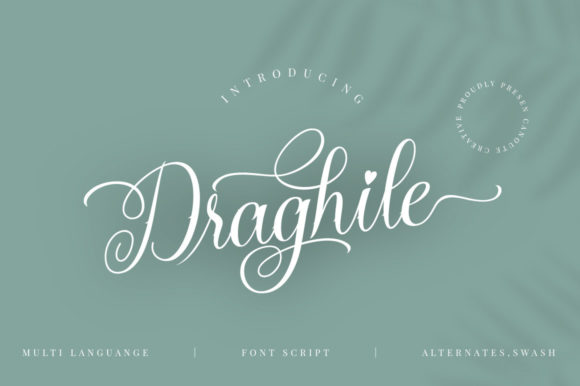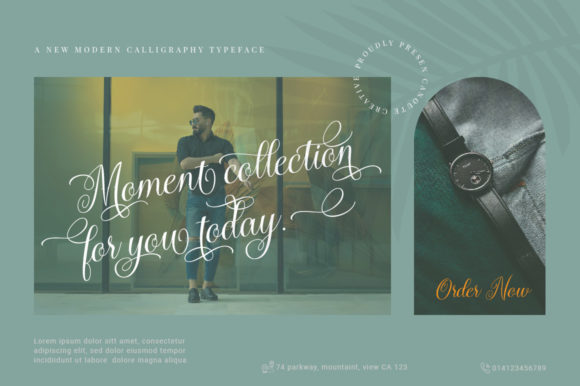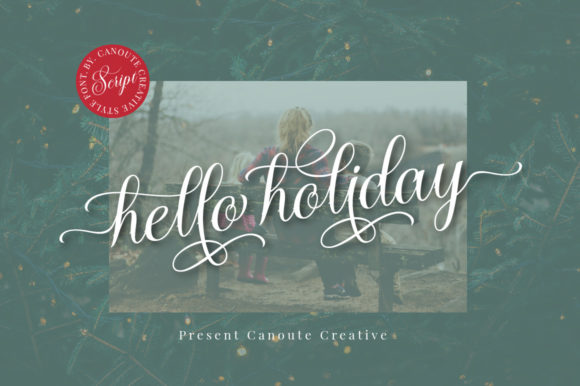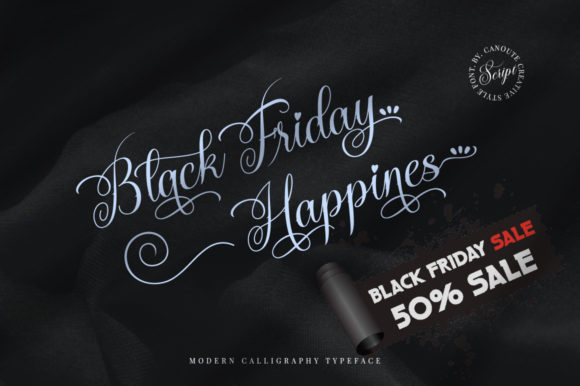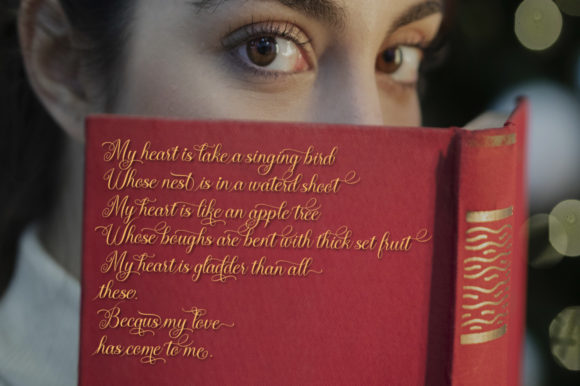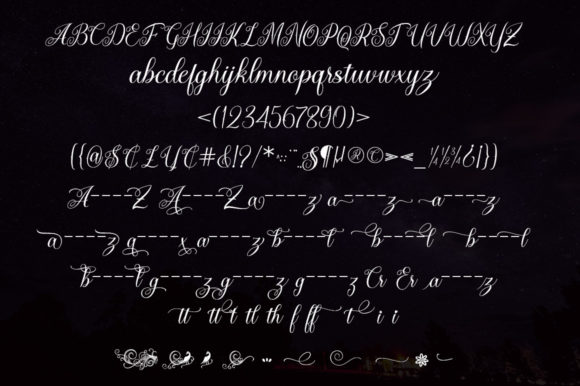
Discover the Elegance of Draghile Font: Elevate Your Designs with its Ravishing Style
In the world of typography, few fonts manage to capture the essence of elegance and sophistication as effectively as the Draghile Font. This distinct, graceful script font has been making waves among designers and crafters alike, and for good reason. Its ravishing style and versatility make it an ideal choice for those looking to add a touch of luxury to their projects. In this article, we’ll delve into the features of Draghile Font, explore its uses, and understand why it has become a favorite among creative professionals.
What is Draghile Font?
Draghile Font is a beautifully crafted script font that exudes elegance and refinement. Its fluid lines, intricate details, and graceful swashes make it perfect for designs that require a high level of sophistication. Whether you’re working on a branding project, creating wedding invitations, or designing packaging, Draghile Font is sure to make your work stand out.
Key Features of Draghile Font
- PUA Encoding: One of the standout features of Draghile Font is its PUA (Private Use Area) encoding. This means that you can access all glyphs and swashes with ease, giving you greater flexibility and creative control over your designs.
- Ravishing Style: Draghile Font boasts a ravishing style that is sure to captivate your audience. Its elegant lines, flowing curves, and intricate details make it perfect for designs that require a touch of luxury.
- Versatility: Draghile Font is incredibly versatile, making it suitable for a wide range of design projects. From branding and advertising to packaging and invitations, this font can be used in various contexts to add a touch of sophistication.
Why Choose Draghile Font?
So, why should you choose Draghile Font for your next design project? Here are a few compelling reasons:
- Elegance: Draghile Font brings an unparalleled level of elegance to your designs. Its refined lines and intricate details make it perfect for projects that require a sophisticated look.
- Readability: Despite its intricate design, Draghile Font remains highly readable, even at smaller sizes. This makes it suitable for body text as well as headings.
- Customization: With PUA encoding, you can easily access and customize glyphs and swashes to fit your design needs. This level of customization allows you to create truly unique designs.
Uses of Draghile Font
Draghile Font’s versatility makes it suitable for a wide range of design projects. Here are some popular uses:
- Branding: Use Draghile Font to create elegant logos, business cards, and letterheads that reflect your brand’s sophistication and style.
- Wedding Invitations: Add a touch of luxury to your wedding invitations, save-the-date cards, and other wedding stationery with Draghile Font.
- Packaging: Elevate your product packaging with Draghile Font, making your products stand out on store shelves.
- Advertising: Use Draghile Font in your advertising materials, such as brochures, flyers, and posters, to create visually stunning and effective campaigns.
Tips for Using Draghile Font
To get the most out of Draghile Font, here are some tips:
- Pair it with Other Fonts: Experiment with pairing Draghile Font with other fonts to create visually interesting and balanced designs.
- Adjust Font Sizes: Play around with different font sizes to create hierarchy and emphasis in your designs.
- Utilize Swashes: Take advantage of Draghile Font’s swashes to add decorative touches to your designs.
| Font Name | Draghile Font |
| Author | Canoute Creative |
Draghile Font is a stunning script font that offers a unique blend of elegance, versatility, and customization. Its ravishing style and PUA encoding make it an ideal choice for designers and crafters looking to elevate their designs. Whether you’re working on branding, wedding invitations, packaging, or advertising, Draghile Font is sure to make your projects stand out. So, fall for its charm and use Draghile Font to create gorgeous designs that leave a lasting impression.